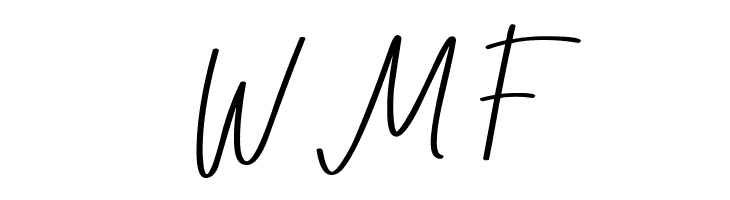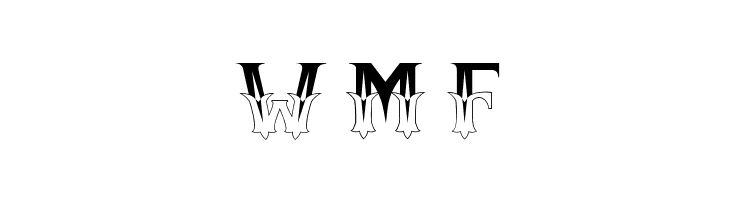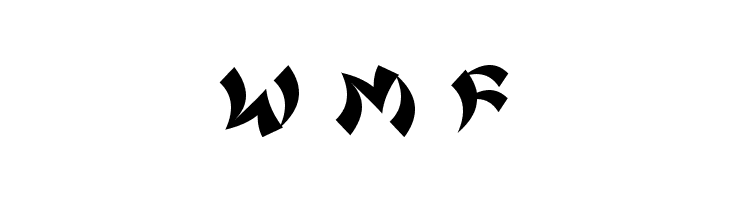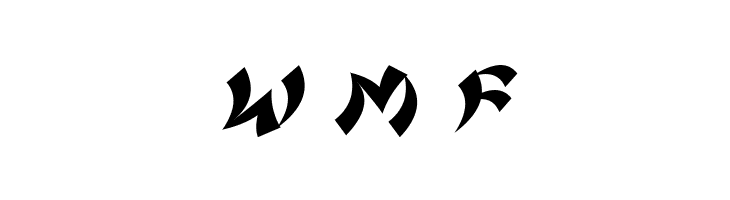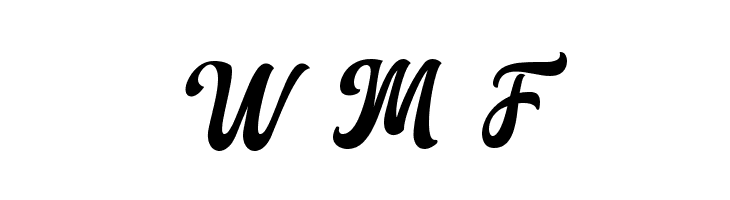
A cursive, handwritten-style font with elegant, flowing strokes.
A bold, decorative font with gothic influences and sharp, angular serifs.
A bold, distressed font with a vintage, weathered look.
A bold, decorative font with intricate details and a vintage-modern blend.
A bold, textured brush-style font with an artistic and organic feel.
A bold, brush-style font with a hand-painted, energetic appearance.
A bold serif font with strong, angular serifs and a modern yet classic aesthetic.
A bold, modern font with sharp, angular edges and artistic flair.
A bold, angular font with a dynamic and energetic style.
A bold, flowing script font with elegant curves and decorative flourishes.